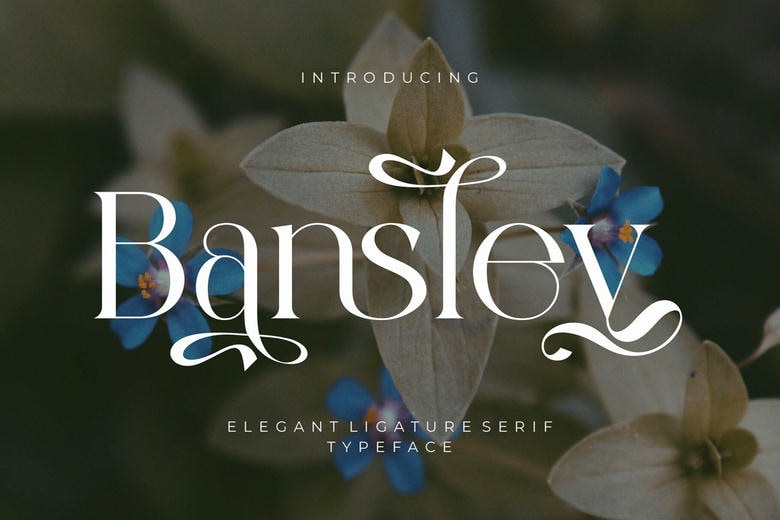
Bansley Font
Bansley is an Elegant Ligature Serif Typeface inspired by the famous minimalist logo perfect for the purposes of designing templates, brochures, videos, advertising branding, logos, invitations, layout design, elegant crafting, beauty design, and other,
Bansley Serif Font